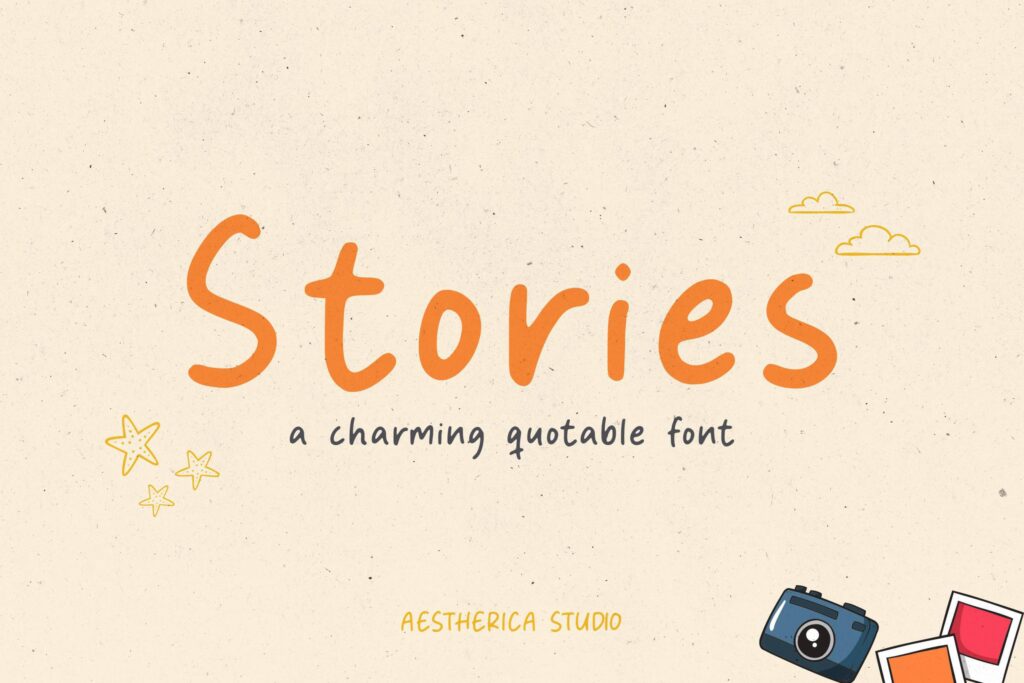
This is a Charming Quotable font with a Brush style and extended kerning, special for your quotes. It puts a bold accent to your projects and it will inspire you to create something playful and unique.